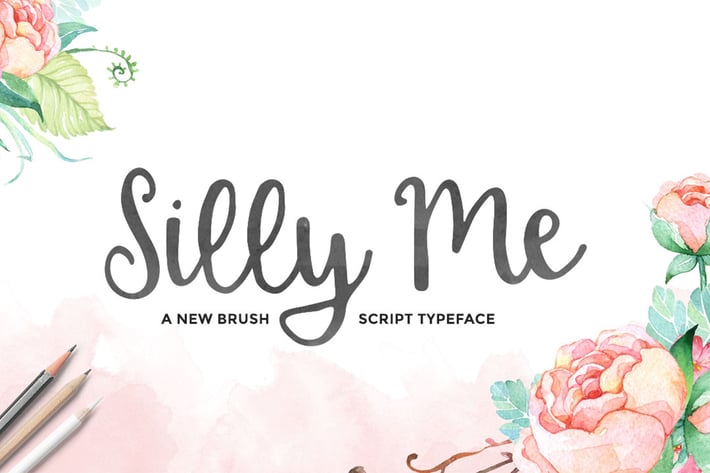
Silly Me Script Font
Silly Me is a new hand painted brush script typeface. Available for both personal and commercial use. No extended license is required. Download and use the Silly Me Script for anything and everything (including on printed or craft items, that are subsequently sold on by you)
Including over 115 different hand drawn characters for a range of languages and dialects.